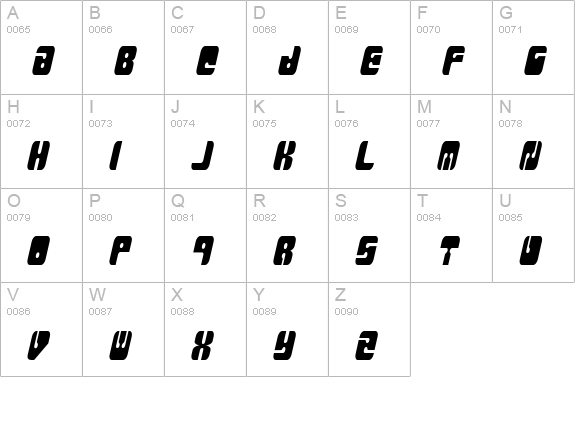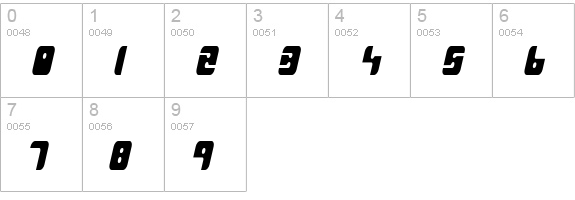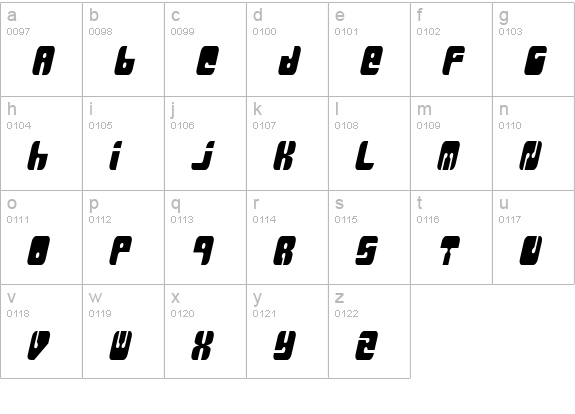
MassiveRetaliation Font Details
Introducing MassiveRetaliation, a bold and powerful font that demands attention and makes a statement. With its strong and commanding presence, this font is perfect for headlines, logos, and any design project that requires a touch of authority. MassiveRetaliation features thick, heavy lines that exude strength and confidence. Its sharp and angular letterforms give it a modern and edgy look, making it a versatile choice for both digital and print designs. Whether you're creating a poster, a flyer, or a website, this font will instantly grab your audience's attention and leave a lasting impression. But what sets MassiveRetaliation apart is not just its striking design, but also its accessibility. It is freely available to download at FontsMarket.com, making it an ideal choice for designers on a budget or anyone looking to add a touch of boldness to their creative projects without breaking the bank. The versatility of MassiveRetaliation is further enhanced by its extensive character set, which includes uppercase letters, lowercase letters, numbers, and punctuation marks. This ensures that you have all the tools you need to create impactful and visually stunning designs. So why wait? Download MassiveRetaliation today and unleash its power in your designs. With its bold and commanding presence, this font is sure to make a statement and leave a lasting impact. Get ready to take your designs to the next level with this free, powerful, and easily accessible font.